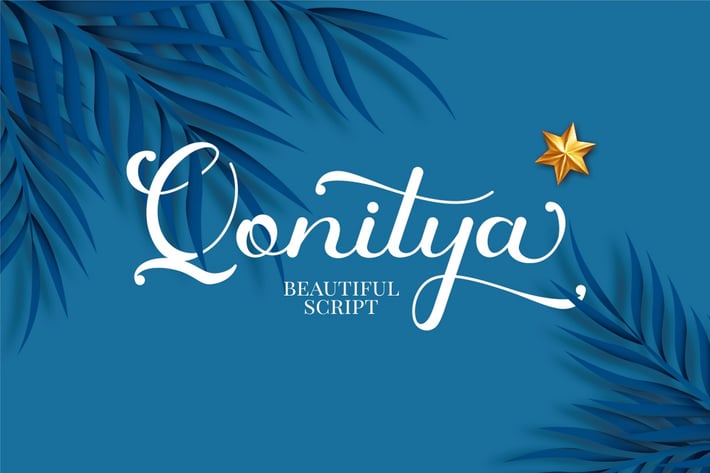
Qonitya - Beautiful Script Font
Qonitya
Introducing Qonitya, a beautiful script font with a lot of alternates character and beautiful flourish that will help you to make a wonderful lettering.
Qonitya is perfect for logotype creation, lettering compositions, wedding invitations, fashion projects, book design cover, magazines typography, cards, packagings, posters, branding and more.
Come with Opentype feature with a lot of alternates, its help you to make great lettering.This font is also support multi language.
Alternate
Number, Punctuation And Symbols
Multilanguage Support.